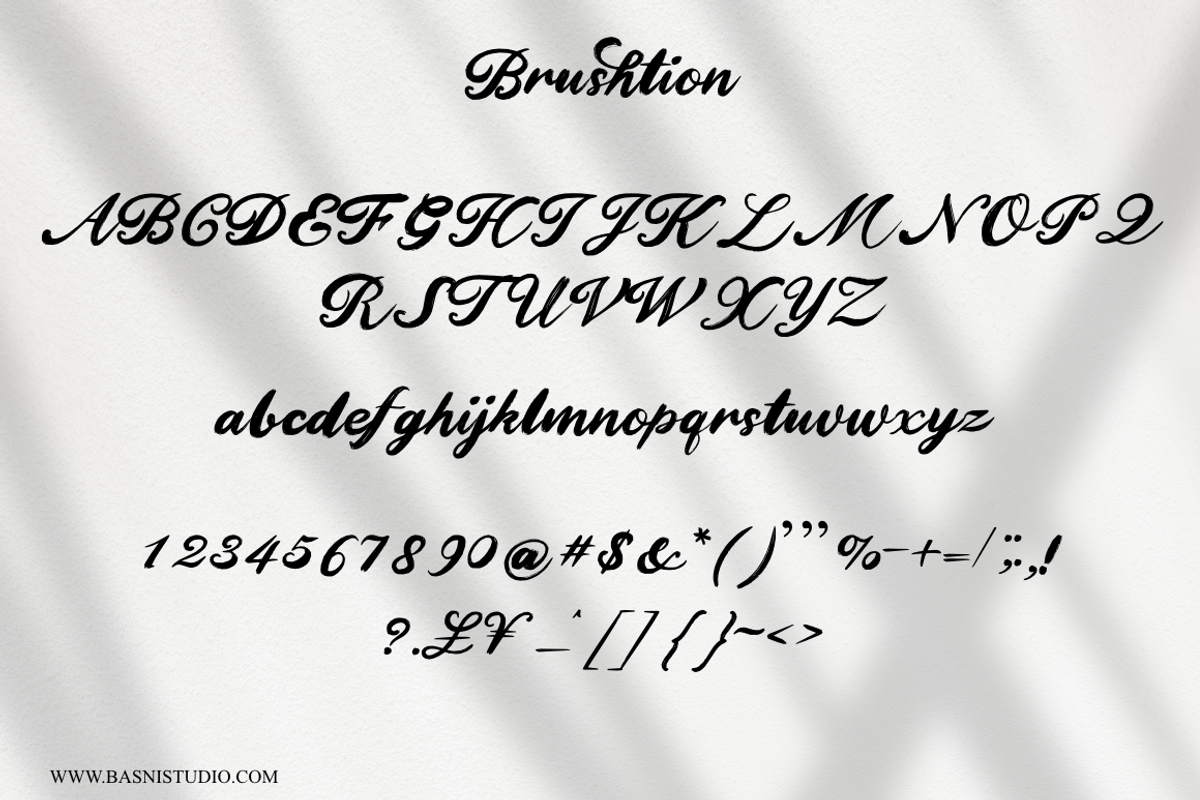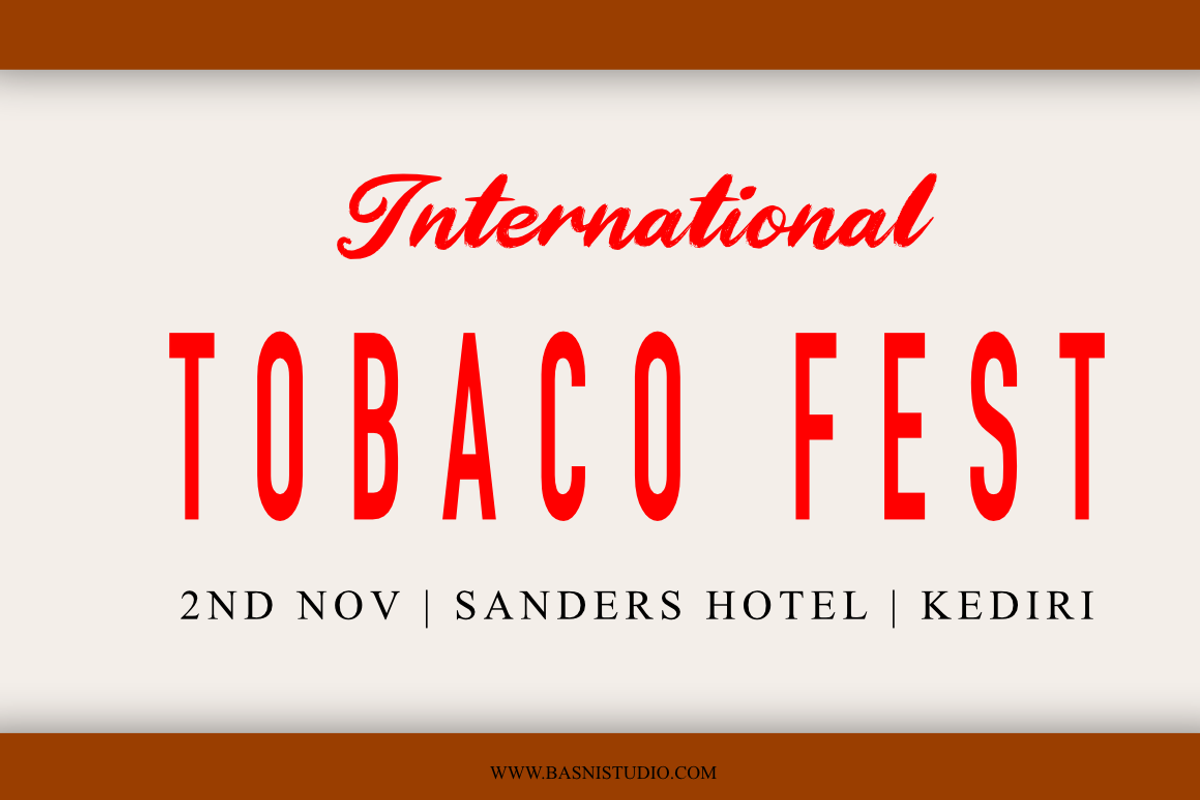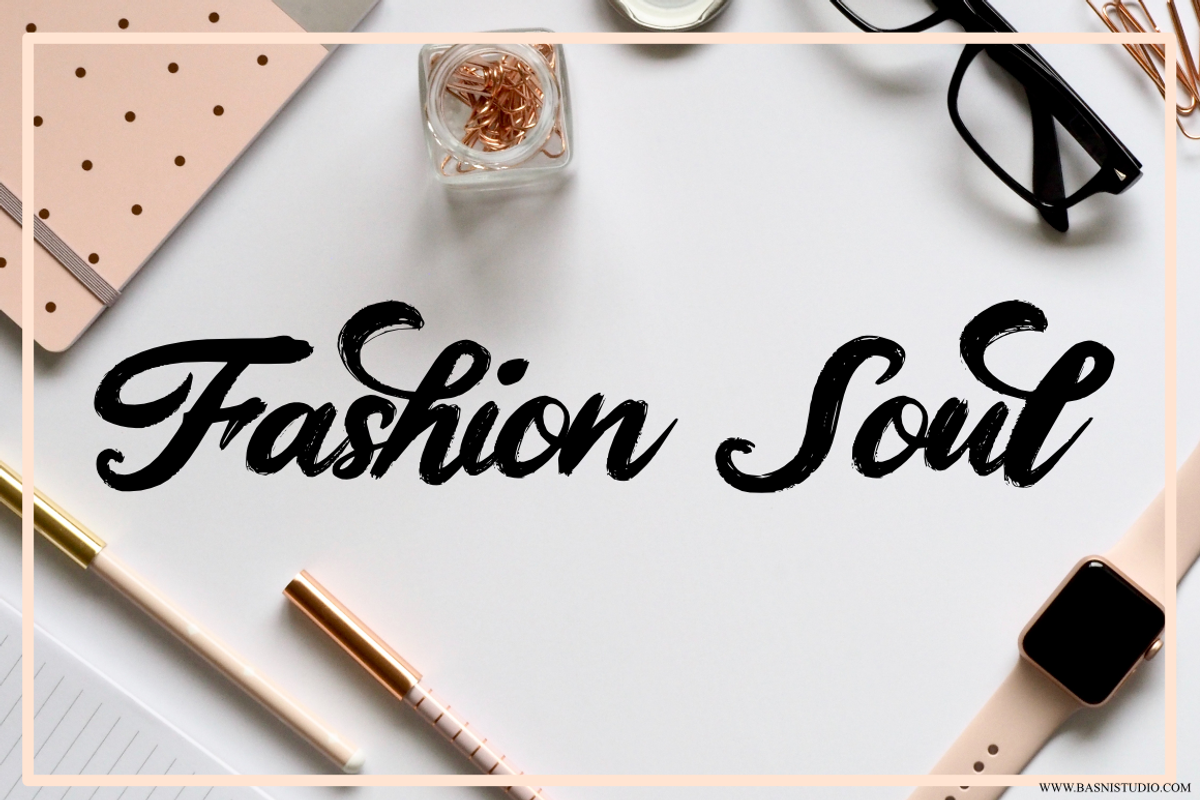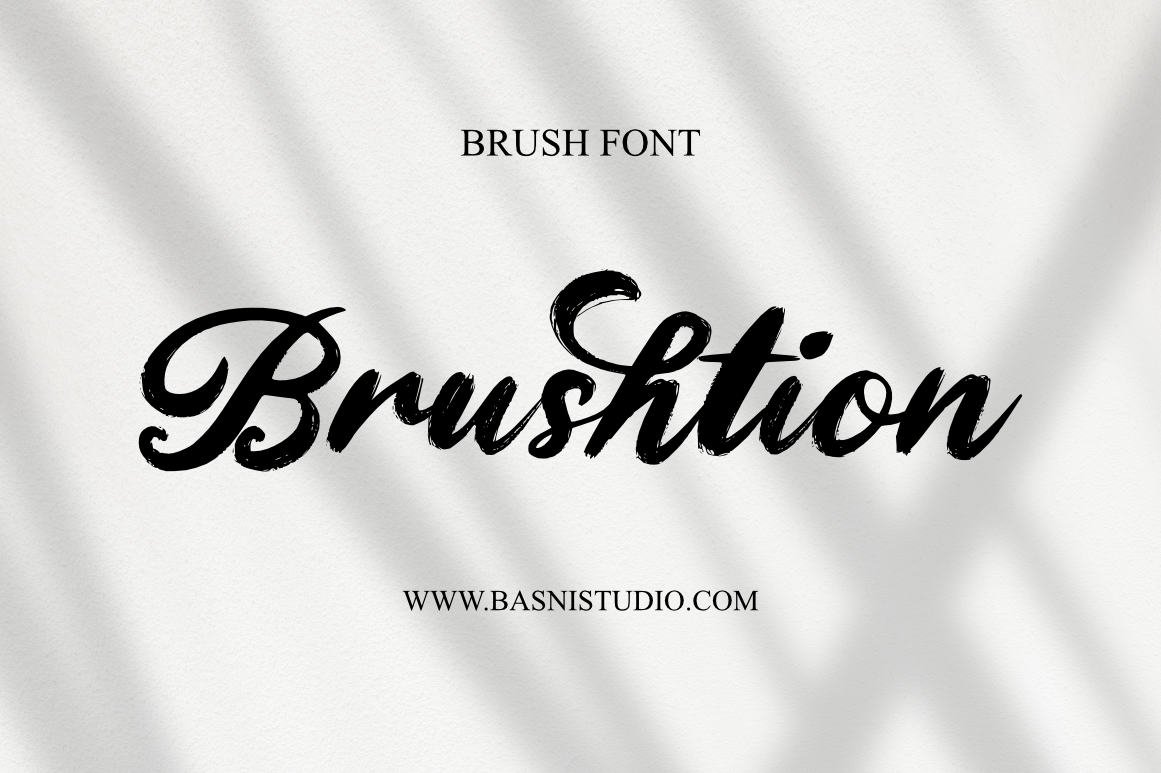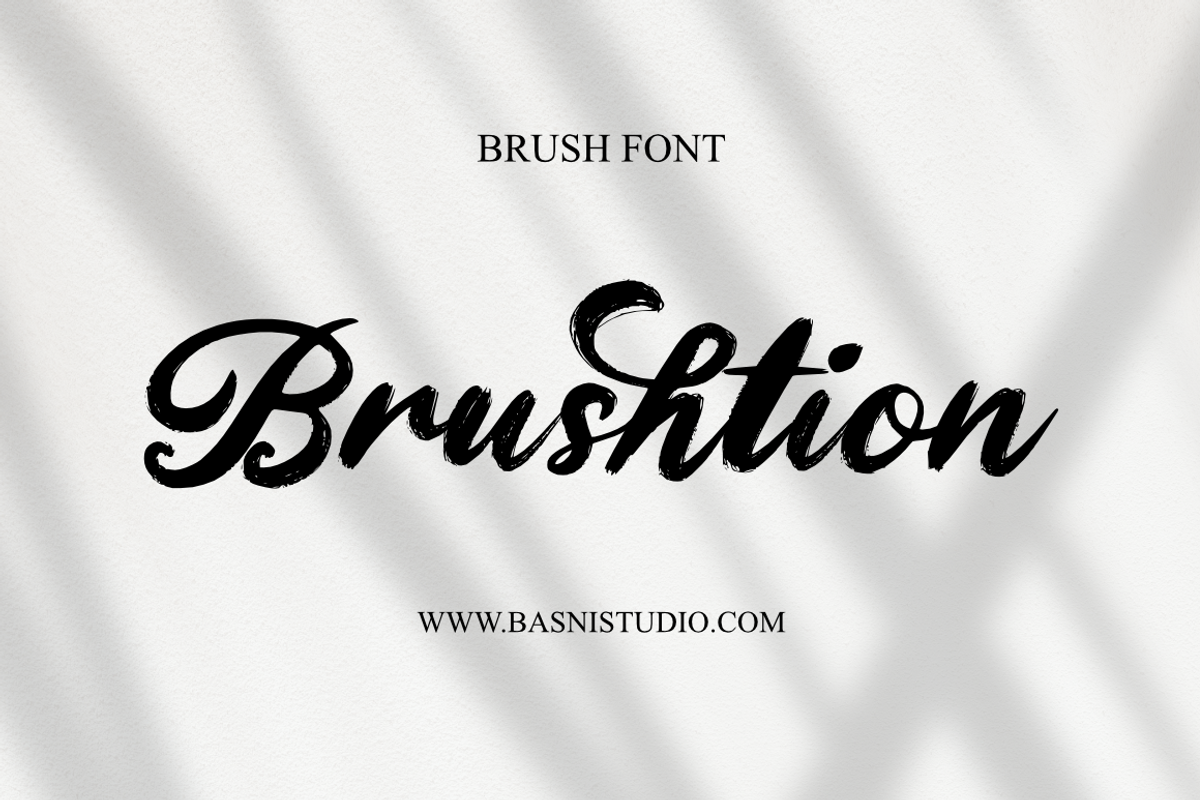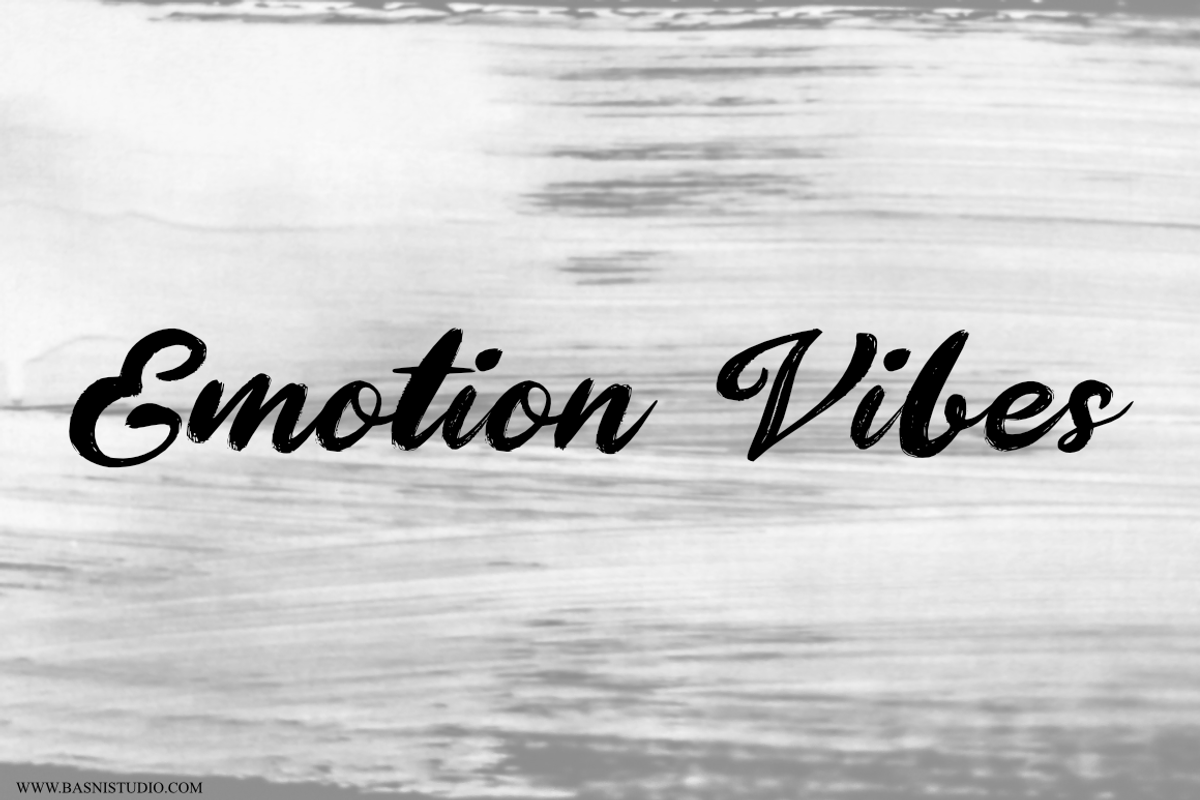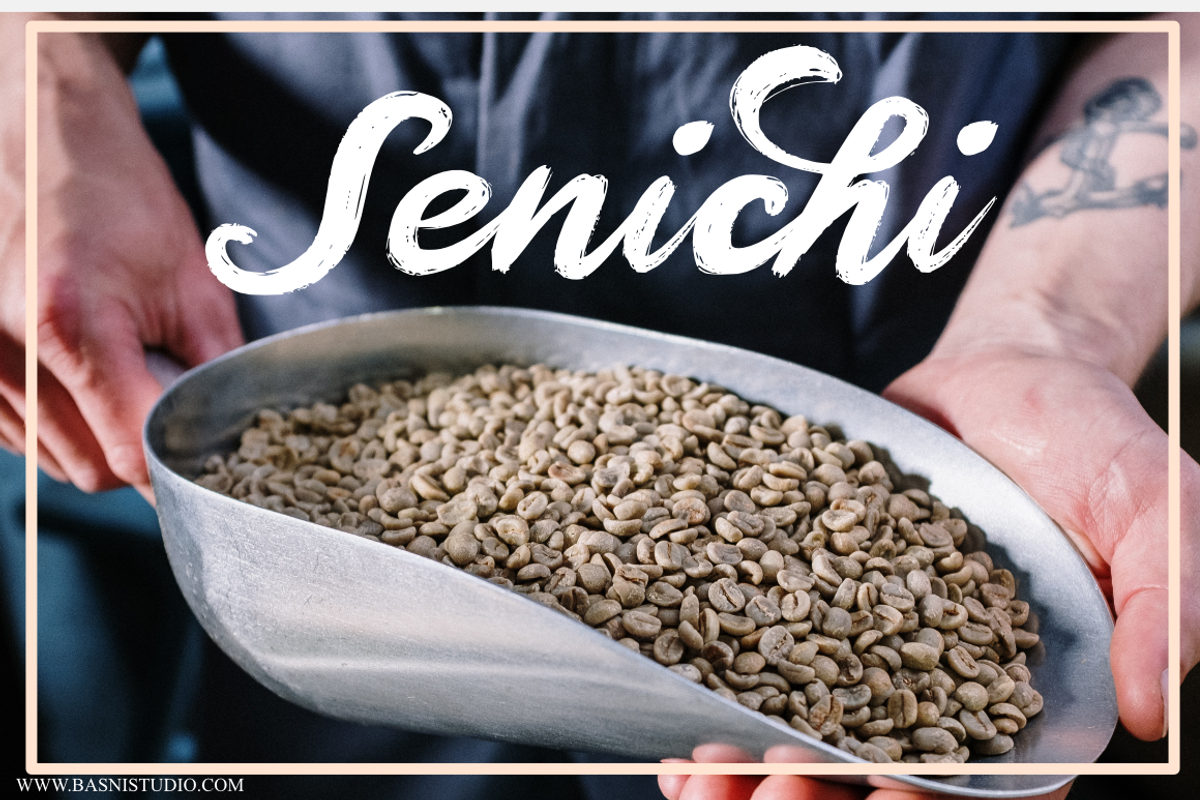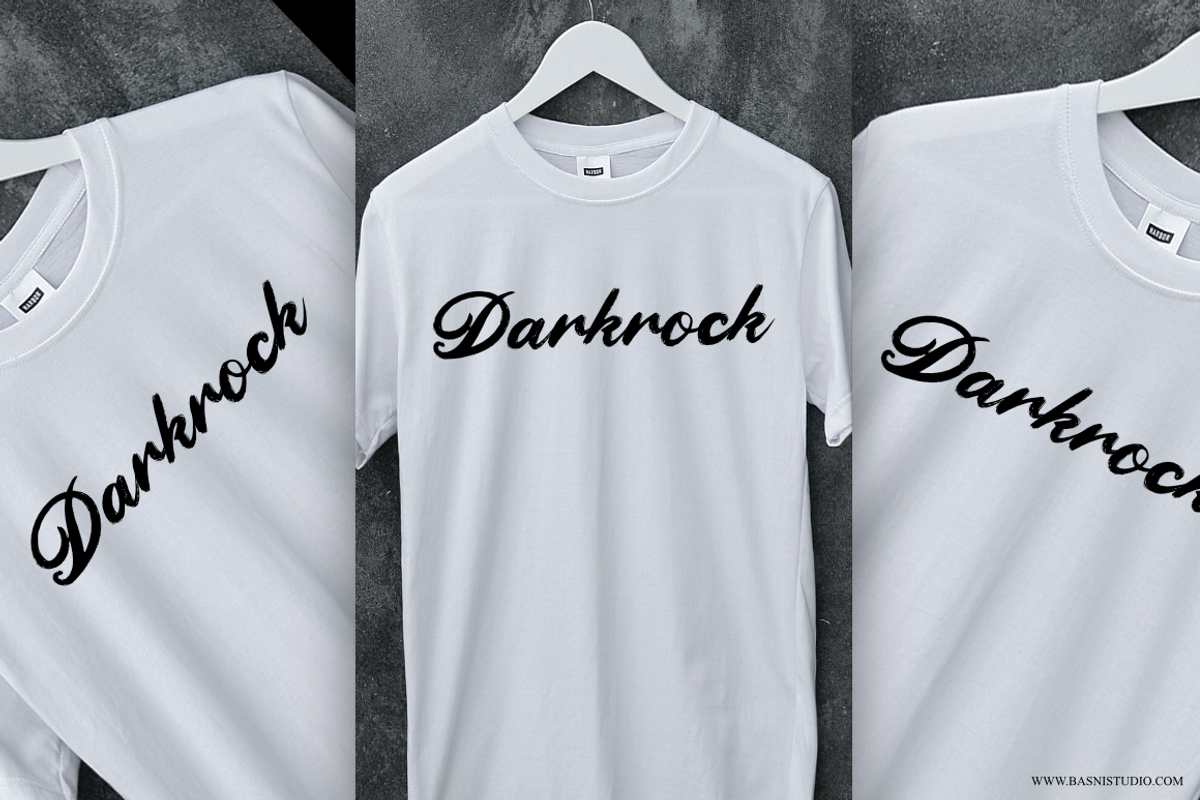
Brushtion | a Brush font
Introducing Brushtion, a Brush font,
Brushtion perfect for branding, websites, design invitation, and editorial designs. Includes all upper and lower case letters, multilingual support & punctuation. everything can be easily accessed using software that supports OpenType.